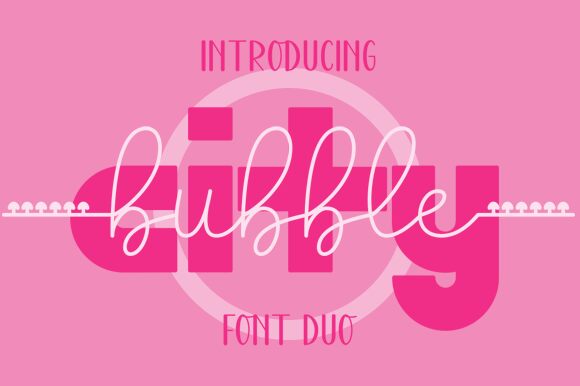
Introducing Bubble City, a groovy, wide and bold display font designed by Anjas Cov Cava Lera. Perfect for creating eye-catching headlines and posters that demand attention, Bubble City is the ideal choice for projects that need a unique twist.
Bubble City
Anjas Cov Cava Lera